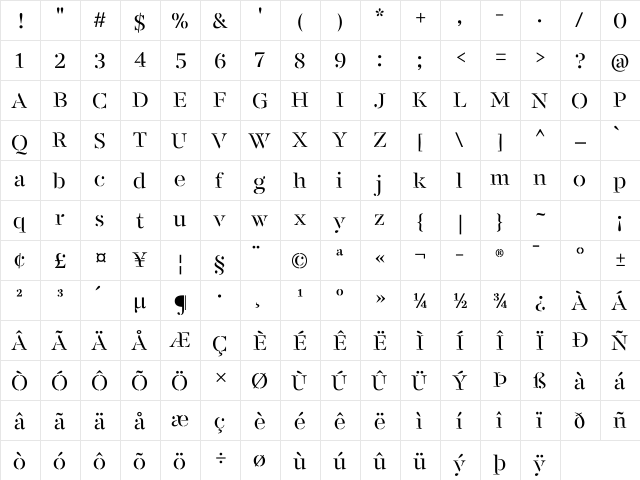
FS Renaissance Regular
| Foundry | Fontsmith Ltd. |
| Designer | Pedro Arilla, Craig Black |
Design Context for FS Renaissance Typeface
FS Renaissance offers clean, dependable letterforms without strong stylistic allegiance, making it a practical choice for designers who need flexibility.